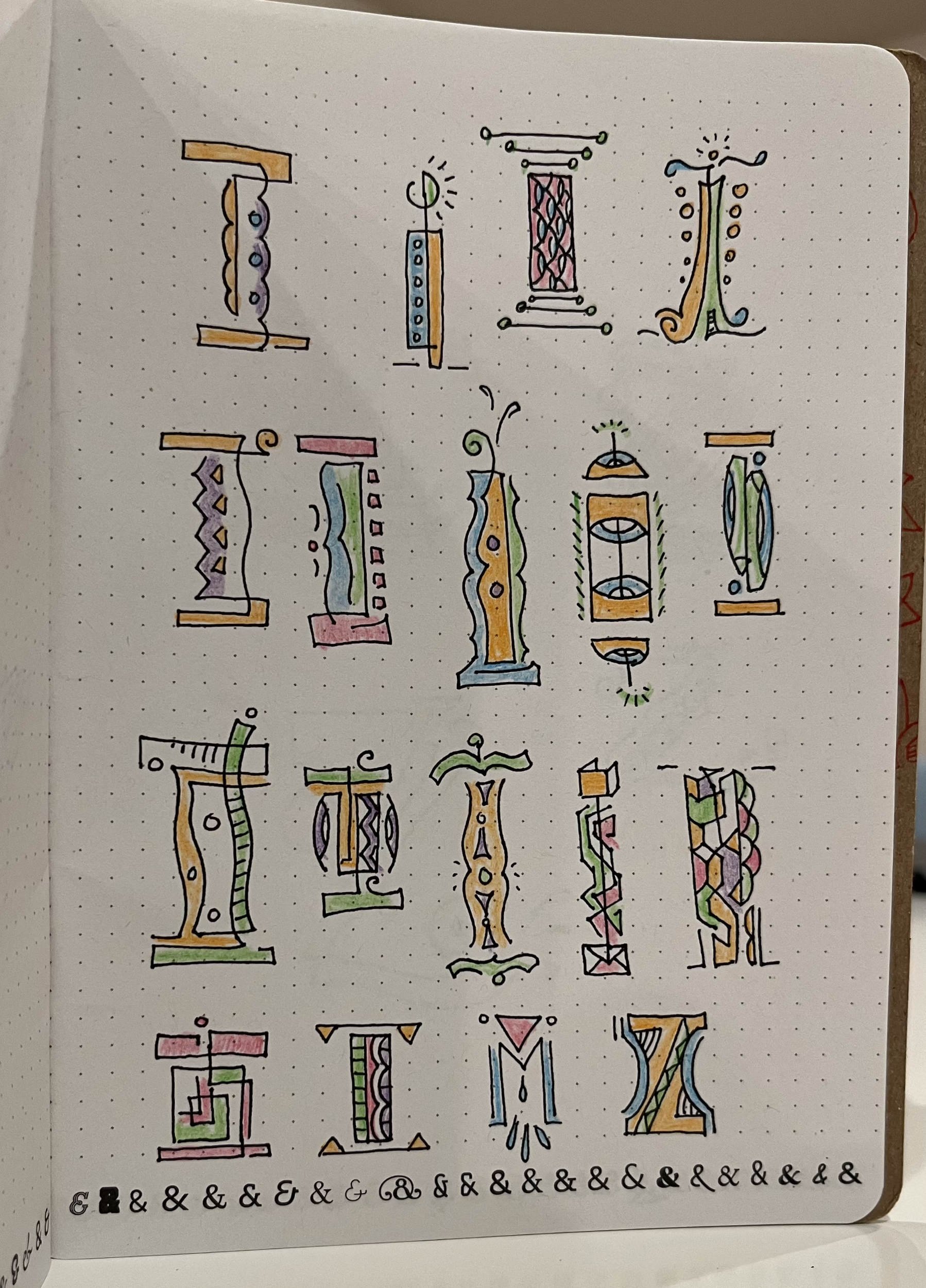
Expressive Display Type Design
I play with letters. I play with their forms and proportions. I build them in ways that are not conventional. I use my favorite tools to draw and color them. I like to express letters rather than draw them. I had fun filling up pages from my sketchbook of letters I designed with monoline pens and color pencils. I think about recreating them as vector but they’ll lose their liveliness. So I think I may create watered down versions of them to create a typeface. Time will tell.